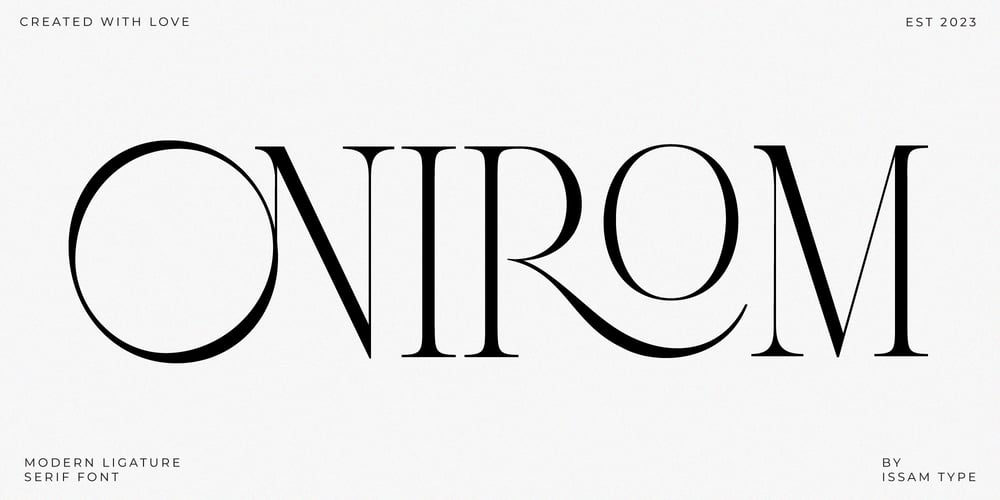
Onirom
Onirom font
Onirom Font Family was designed by Issam Boufelja and published by Issam Type. Onirom contains 2 styles and family package options. Onirom is a Modern ligature serif font comes with joining ligatures that give it a fancy and unique style. This awesome font is perfect for branding, logos, invitation, watermark and so much more.Onirom typeface comes with regular and round font styles. Uppercase letters, numbers, punctuation, ligatures, alternates and multilingual support.If you have any questions, please feel free to get in touch.Thank you